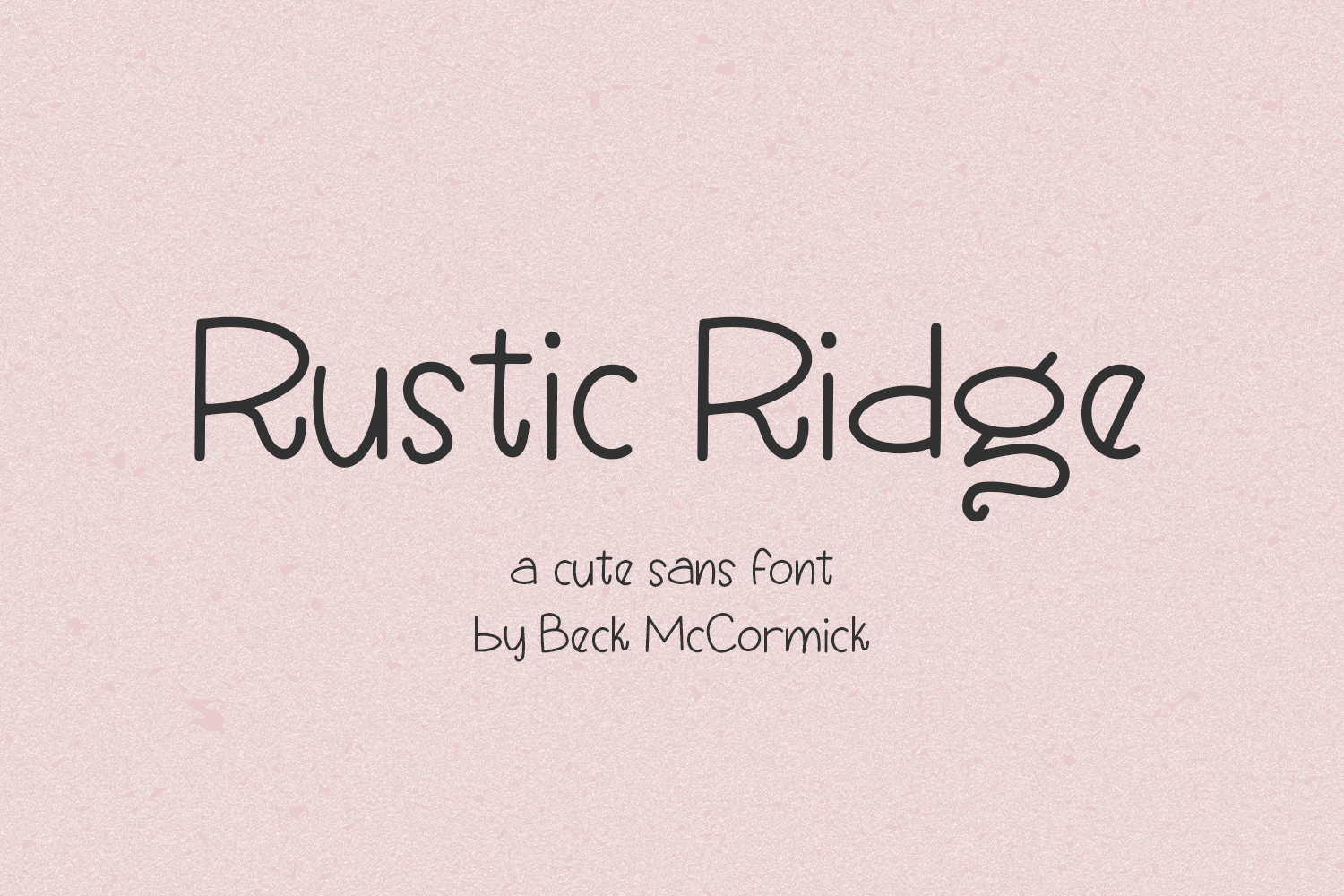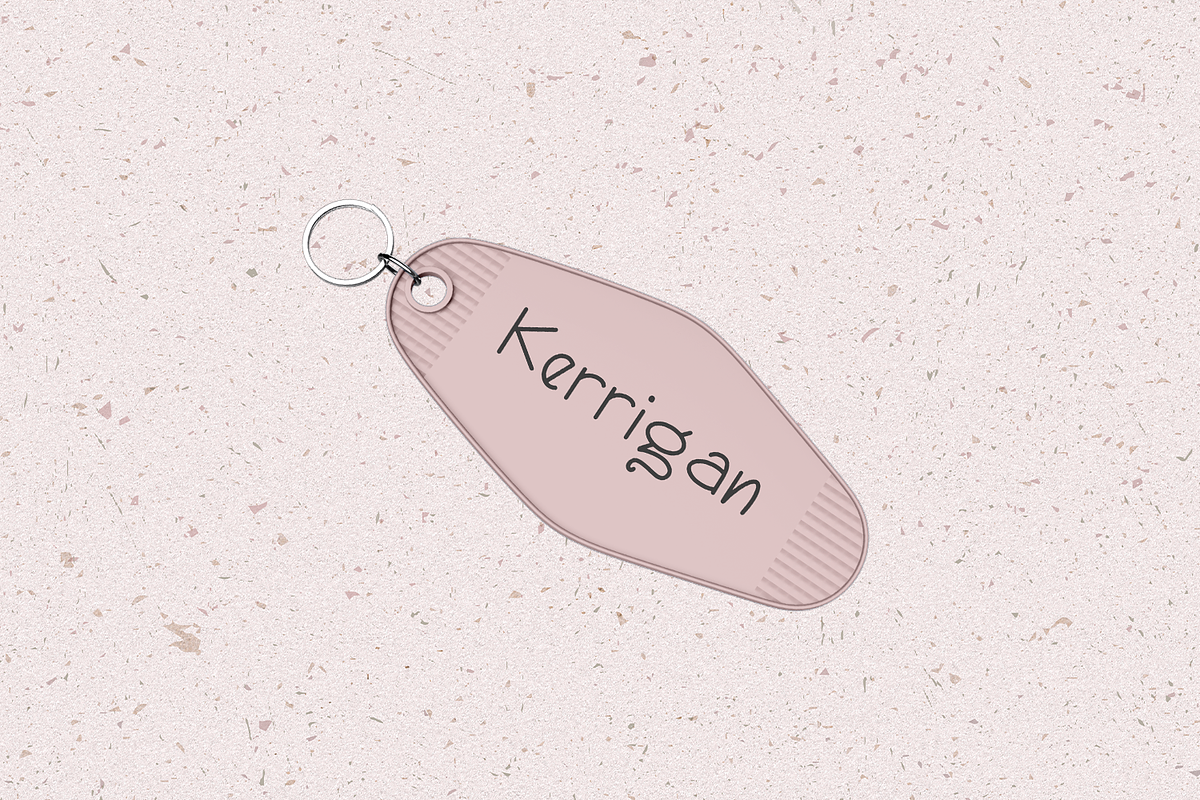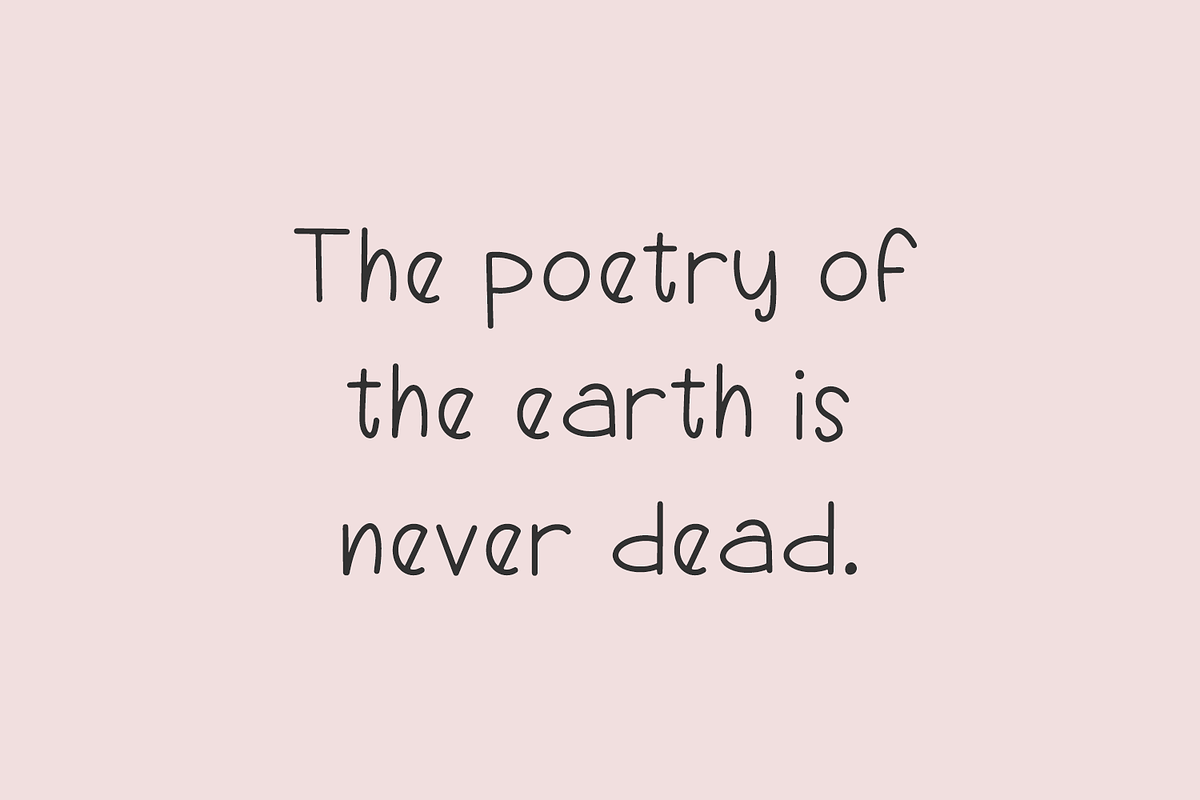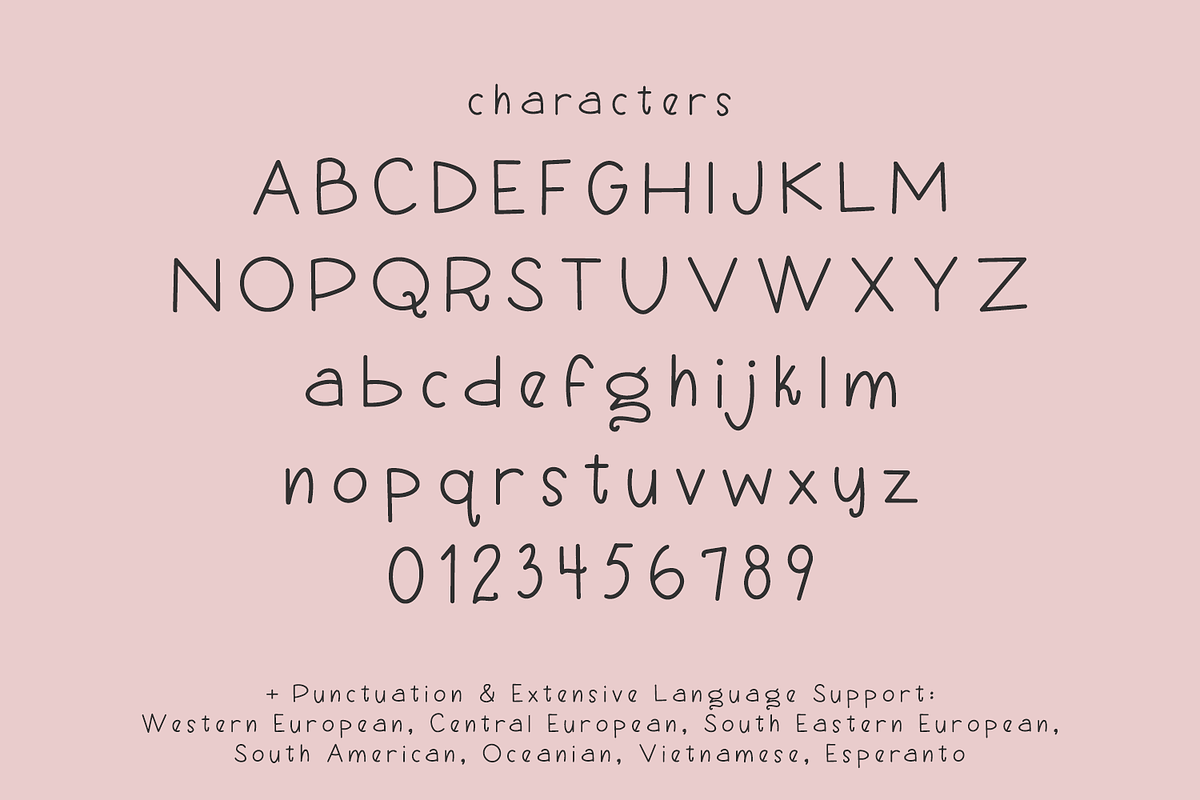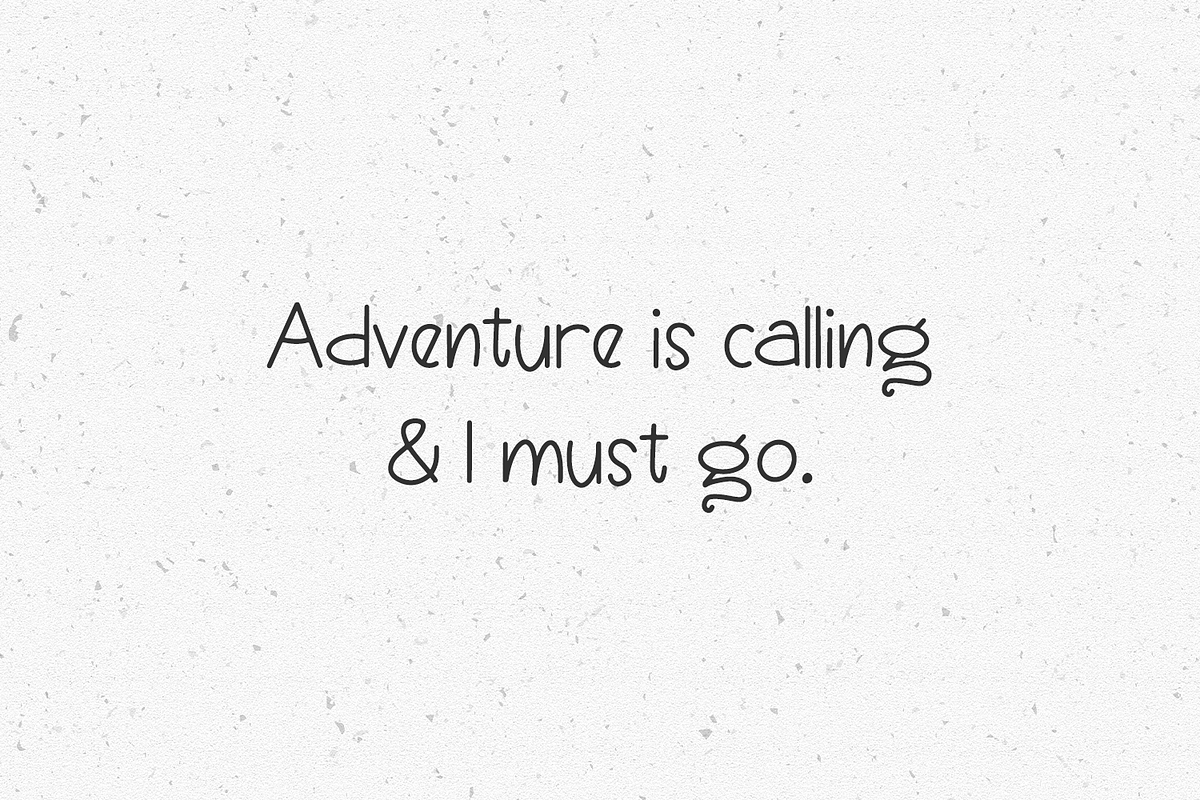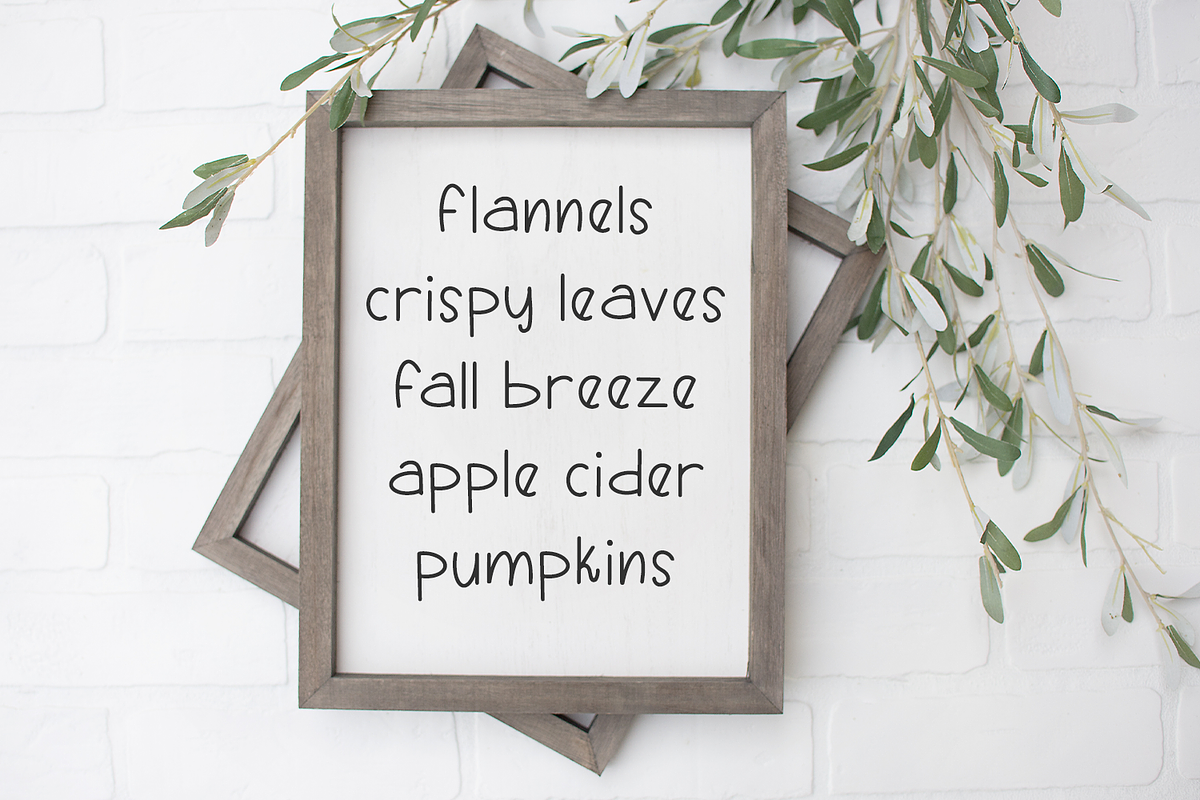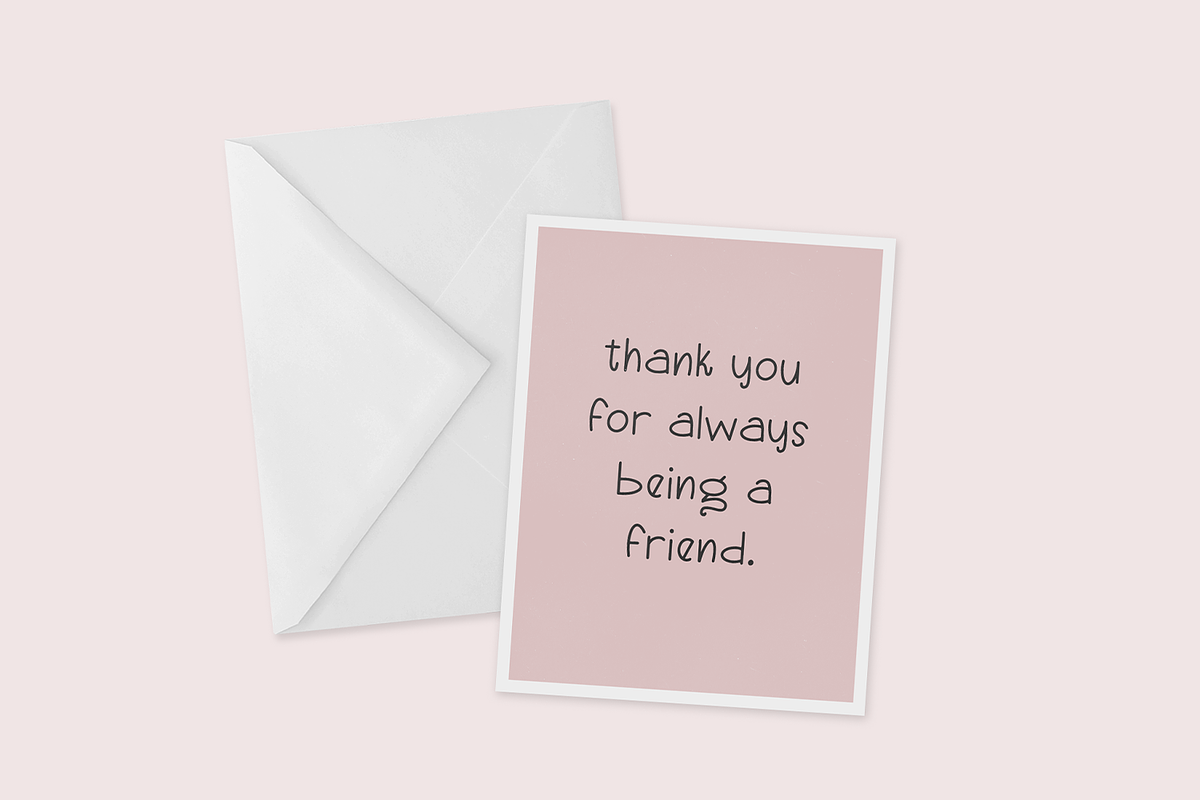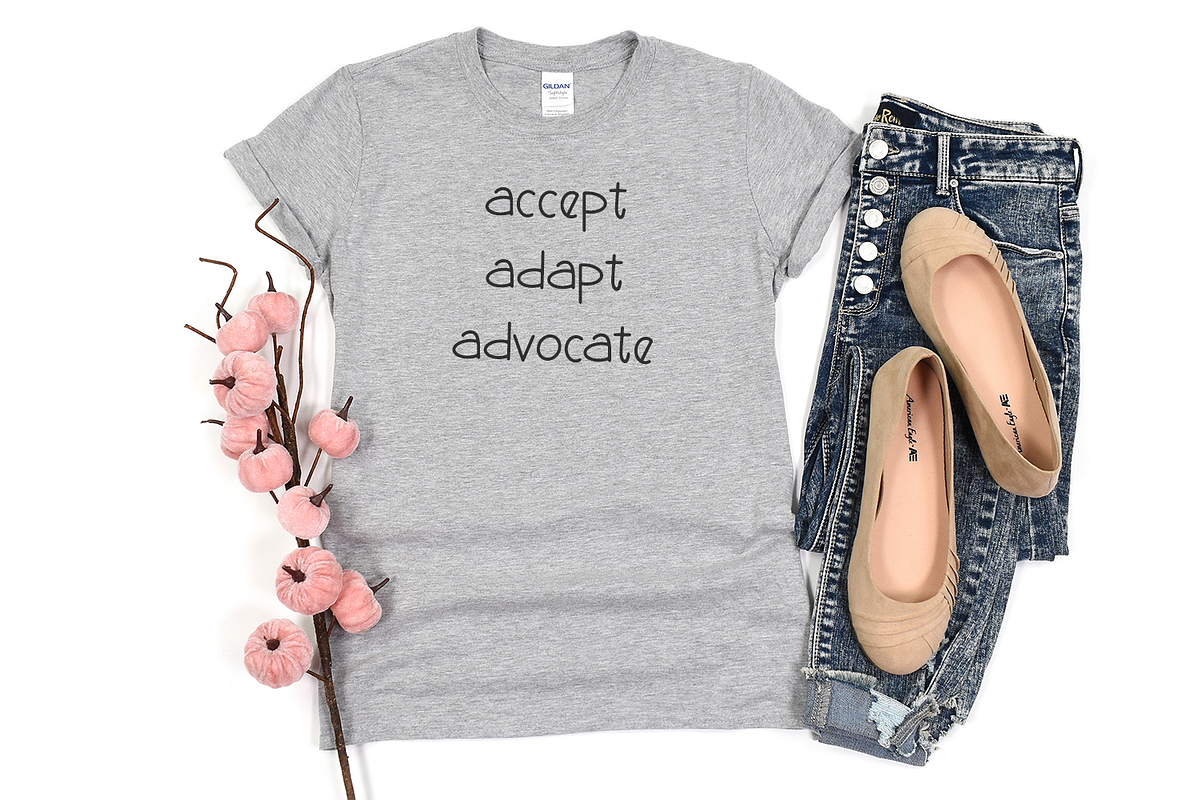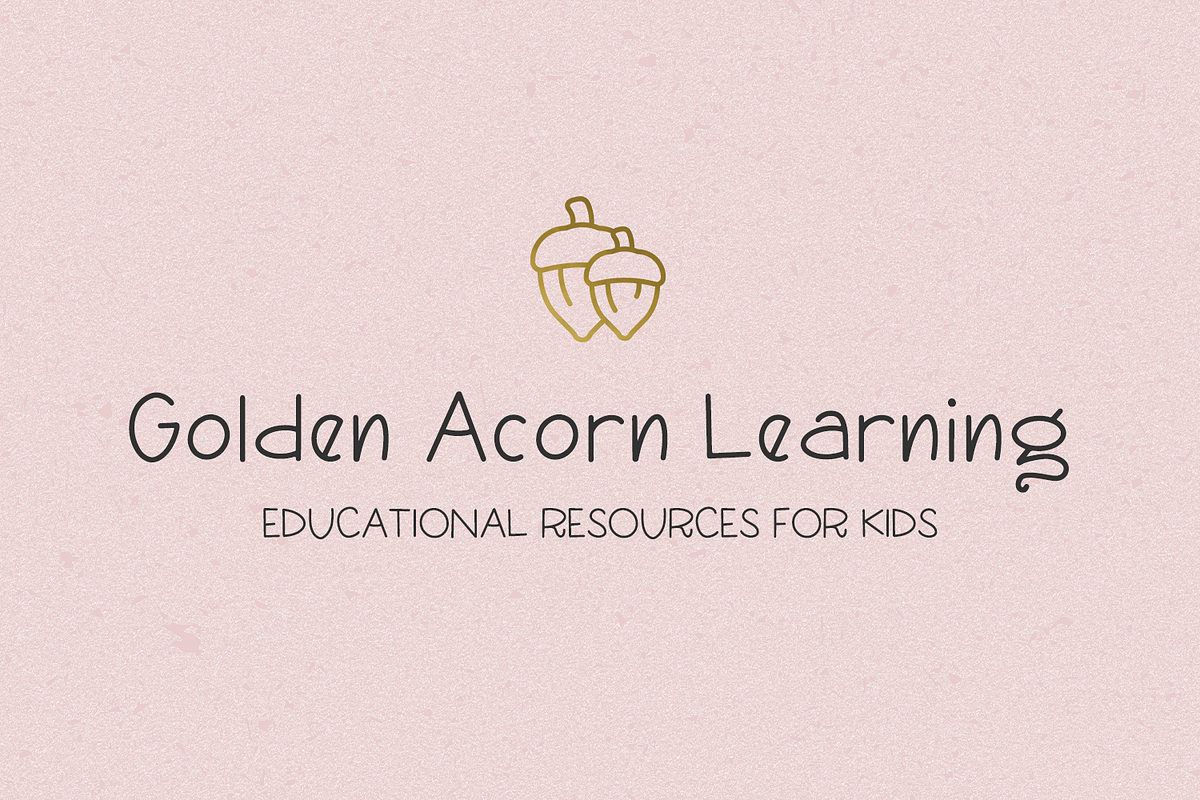
Rustic Ridge Handwritten Font
Rustic Ridge Sans is an adorable handwritten sans font. This font is neat & tidy, with a touch of preppy girl cuteness. Rustic Ridge Sans is perfect for logos & branding, greeting cards, painted banners, digital planners, note-taking apps, Canva, Cricut projects, Silhouette projects, designing SVG files, laser cutting projects, & more.
Rustic Ridge Sans includes:
- full upper + lowercase characters
- numbers + punctuation
- Extensive Language Support: Western European, Central European, South Eastern European, South American, Oceanian, Vietnamese, Esperanto